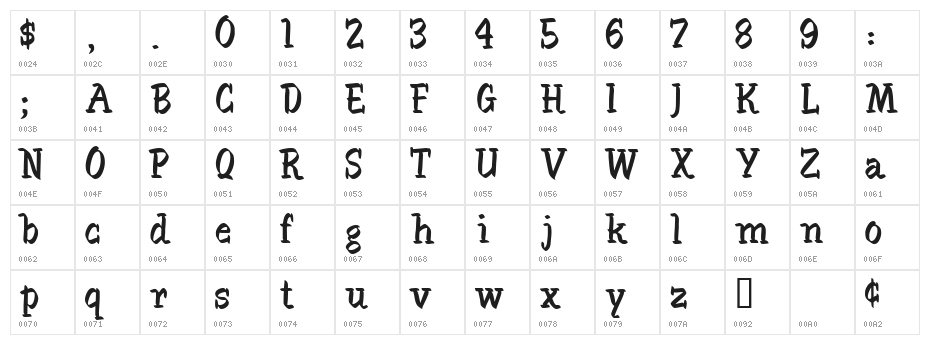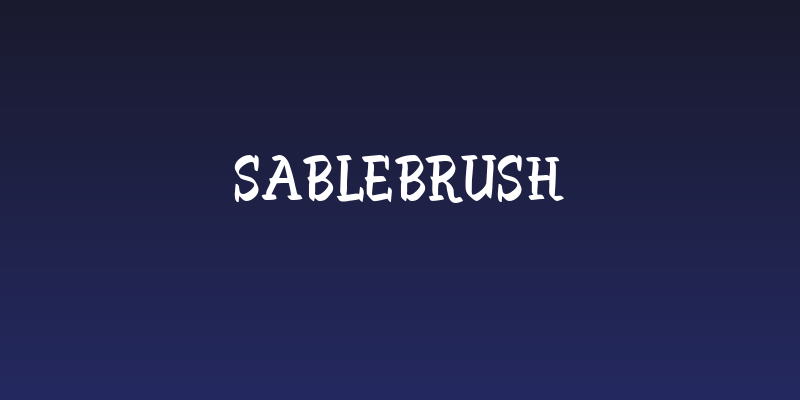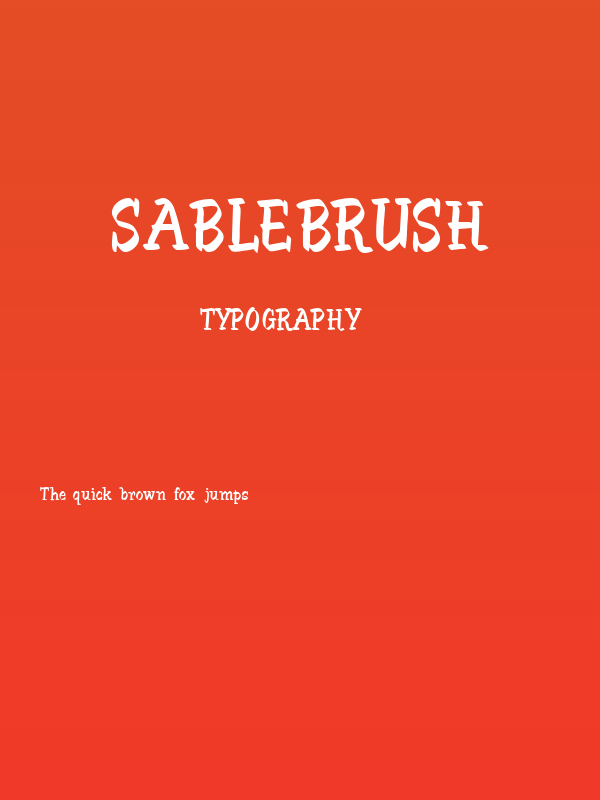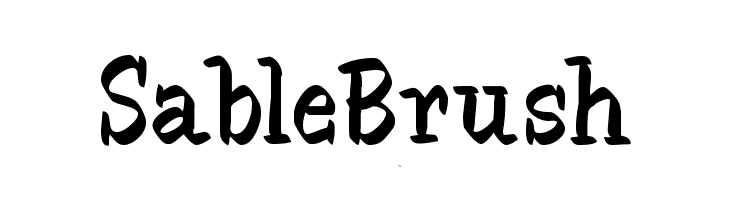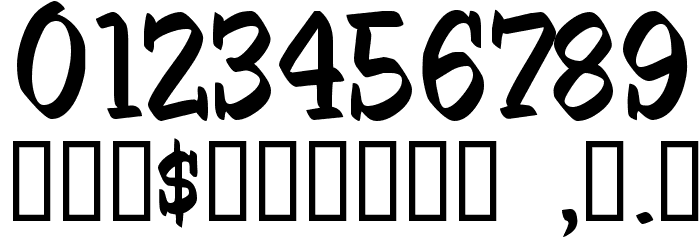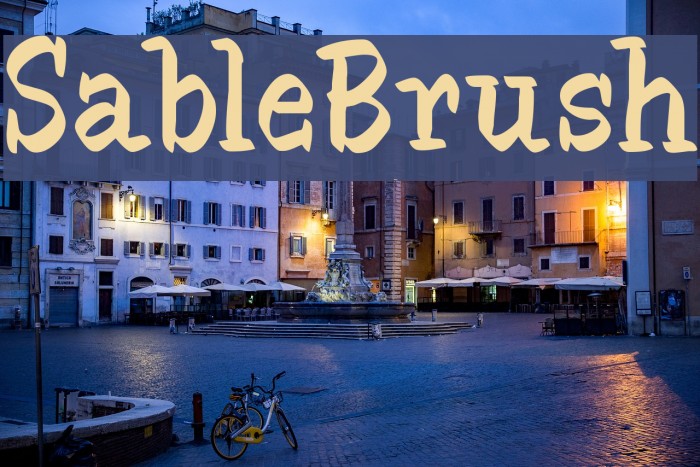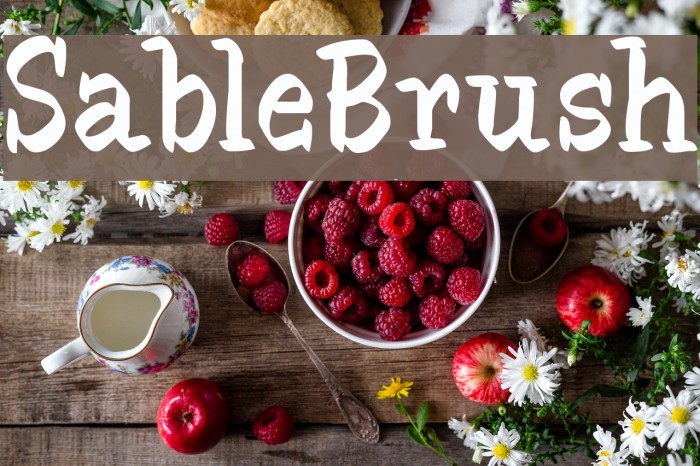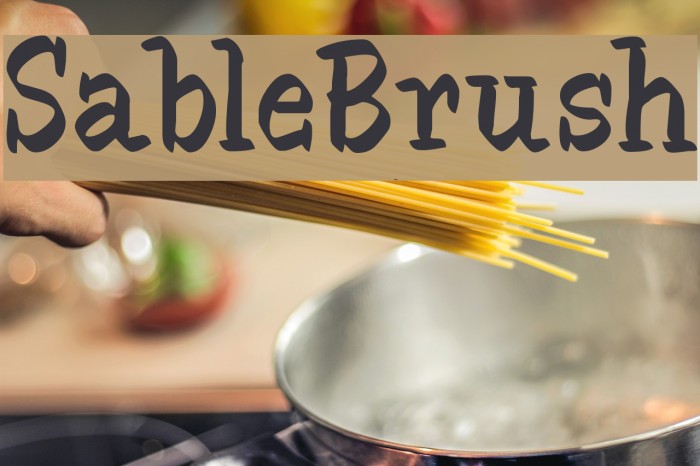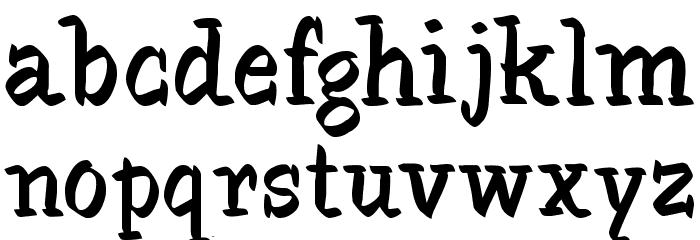
SableBrush Font
SableBrush Description
This font exhibits a playful and artistic style, reminiscent of brush strokes with its uneven edges and dynamic curves. The uppercase letters are bold and expressive, while the lowercase letters maintain a consistent flow, adding to the font's handcrafted appearance. The numerals are distinct and maintain the same artistic flair, ensuring readability while keeping the overall aesthetic. Special characters are designed to match the whimsical nature of the font, making it suitable for creative and informal applications. The font's unique style makes it stand out, ideal for projects that require a touch of personality and creativity.
| Proposed Projects | Ideal for greeting cards, posters, children's books, and creative branding. |